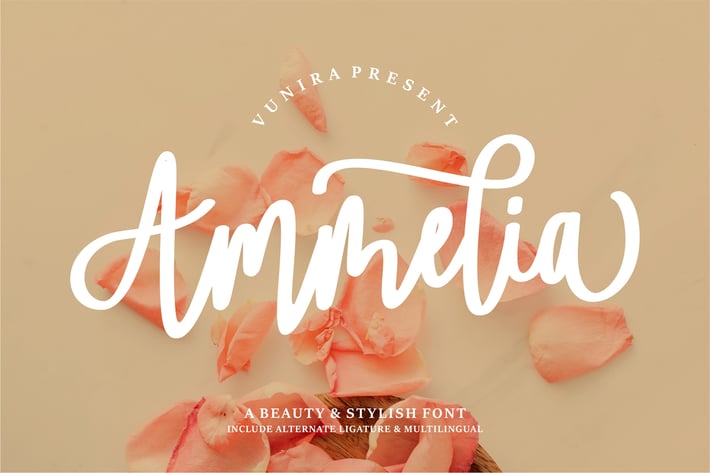
Ammelia | A Beauty & Stylish Font
Ammelia | A Beauty & Stylish Font with a calligraphy style, So beautiful on invitation like greeting cards, branding materials, business cards, quotes, posters, and more!